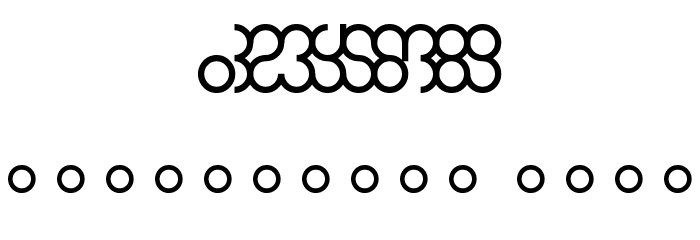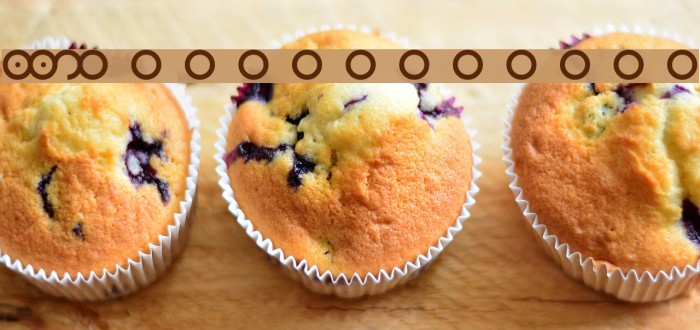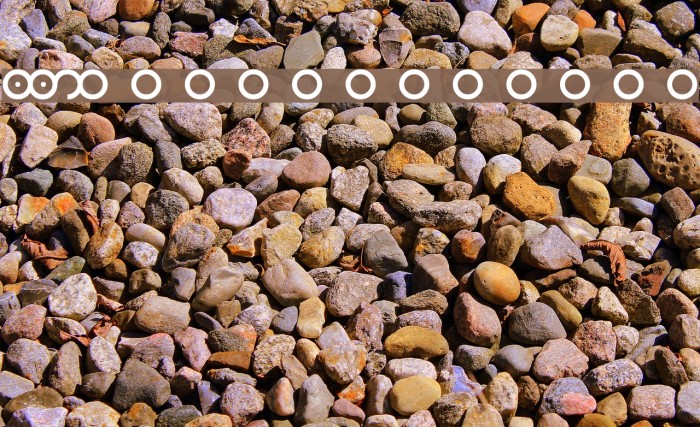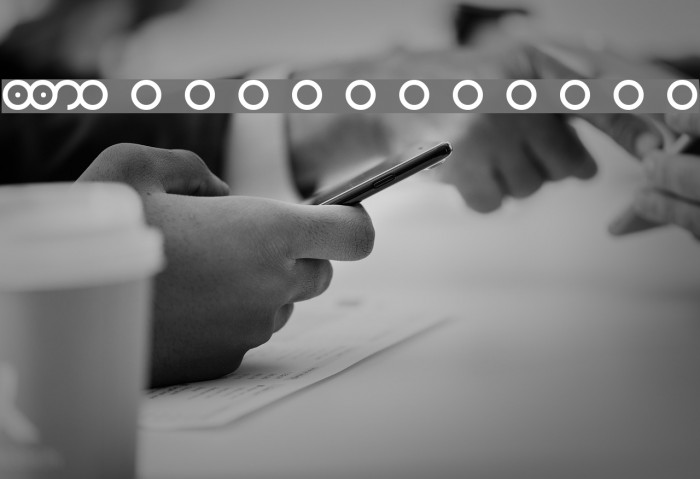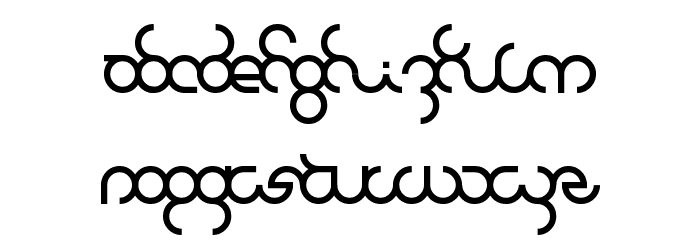
Z_metalflame Font
This design features a series of interconnected circular and semi-circular shapes that create a unique and abstract pattern. The characters are formed by combining loops and curves, giving them a decorative and ornamental appearance. The style is reminiscent of intricate metalwork or flame-like motifs, with a consistent thickness throughout the strokes. The overall look is highly stylized and artistic, making it suitable for creative and decorative applications.
An abstract, decorative pattern with interconnected circular shapes.
• Proposed Projects: Ideal for artistic projects, decorative designs, or as a unique element in branding materials.
• Category: Decorative/Display
• Overall Style: Decorative
• Use Case: Logos, Artistic designs, Decorative elements